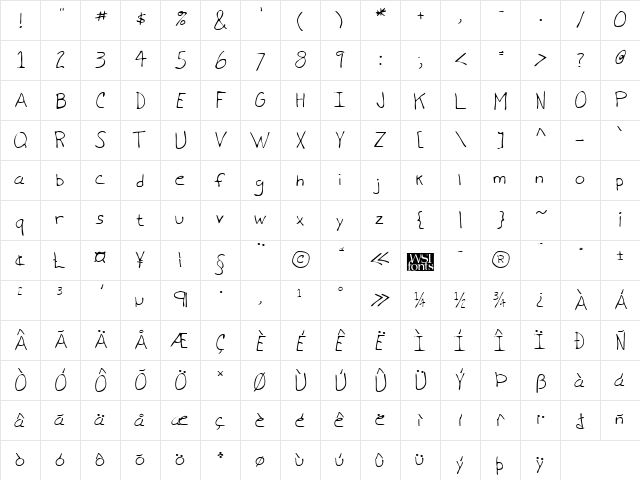
DentonsHand Regular
Design Context for DentonsHand Typeface
DentonsHand flows with the natural rhythm of handwritten lettering, making it ideal for designs that call for warmth and personal expression.
Font Pairing: Combine DentonsHand with a simple geometric sans for maximum contrast — the tension between flowing curves and clean structure is a classic typographic pairing.
Pro Tip: Pair DentonsHand with a clean sans-serif for supporting text. The contrast between fluid script and geometric structure creates an elegant typographic hierarchy.